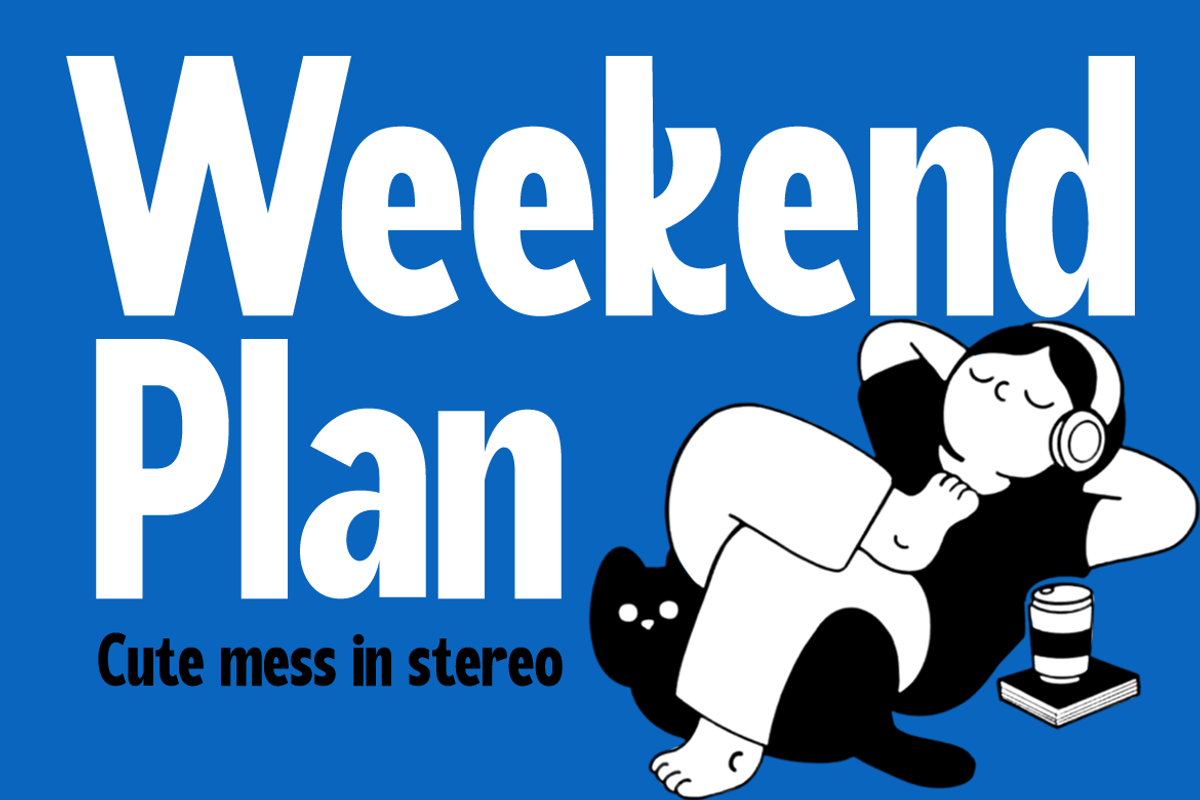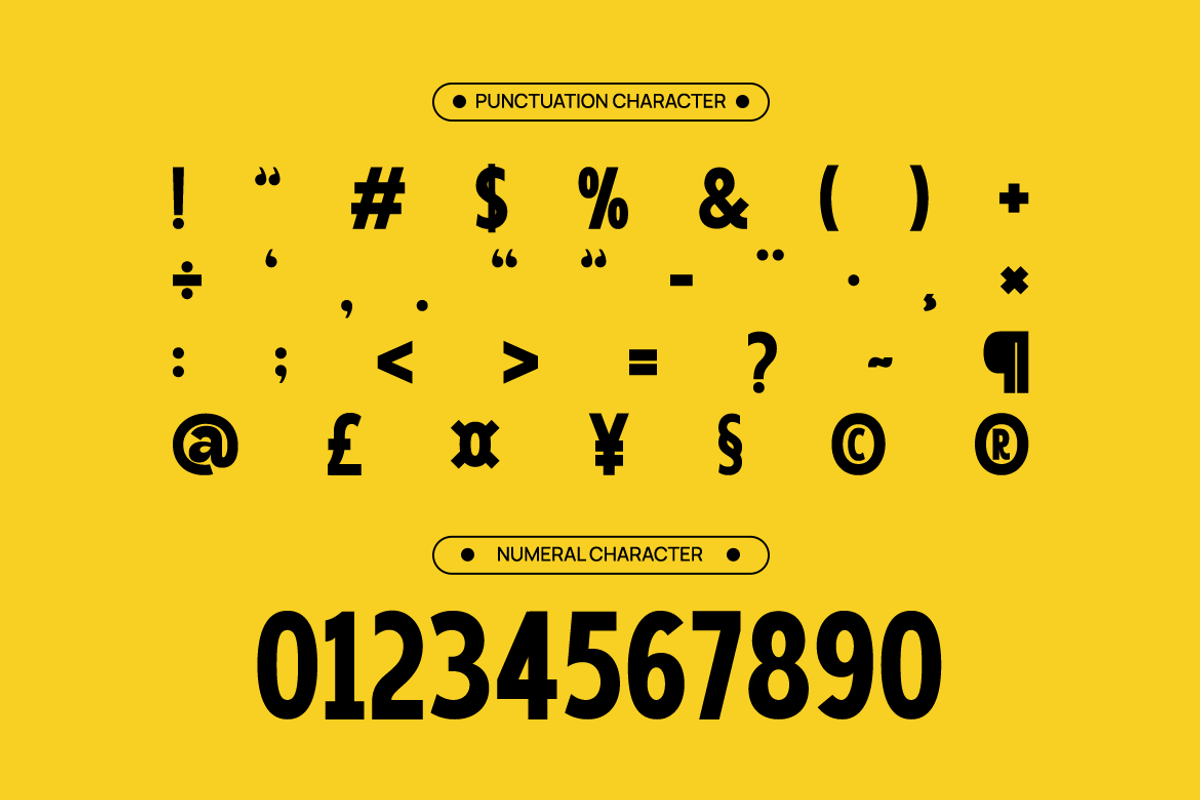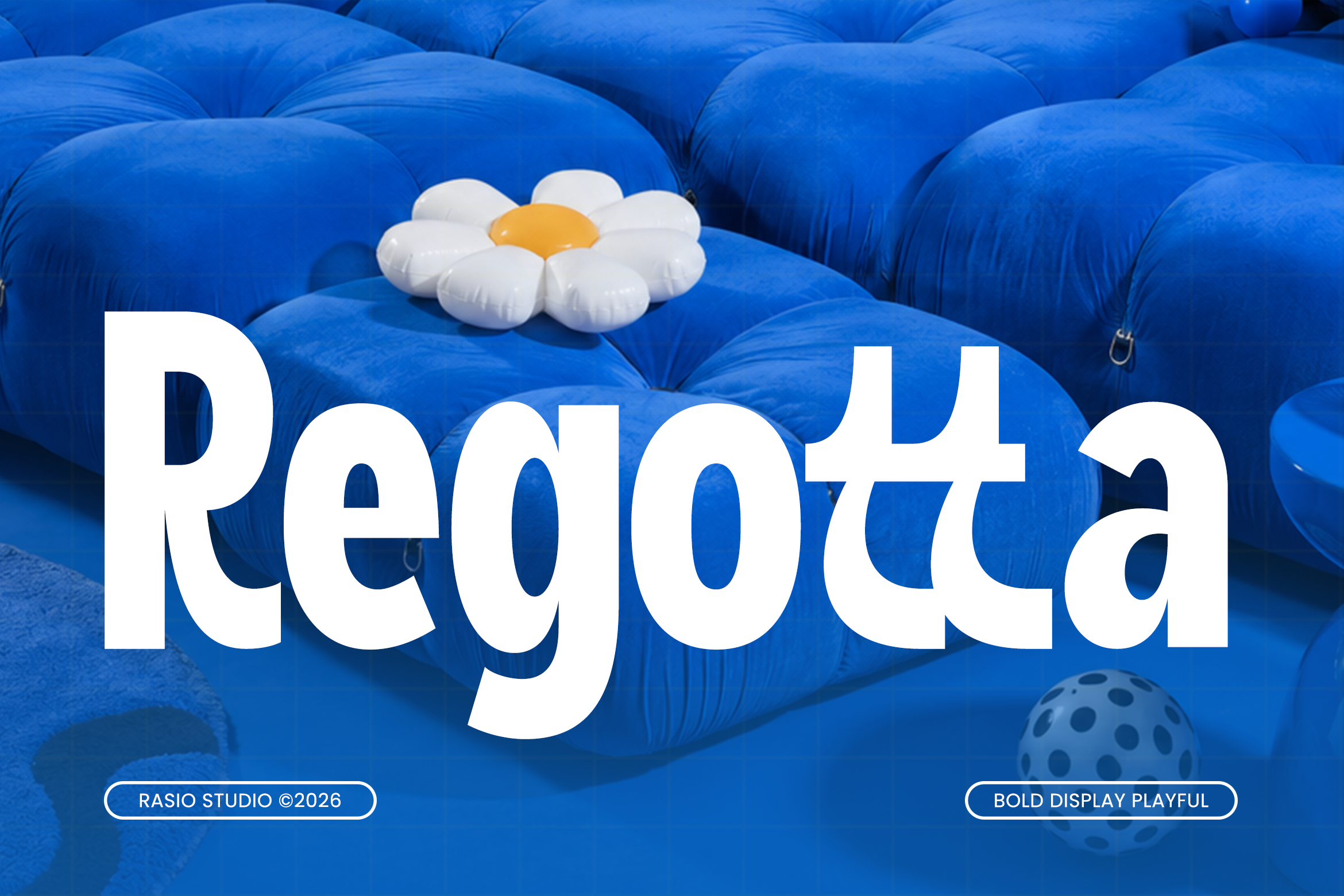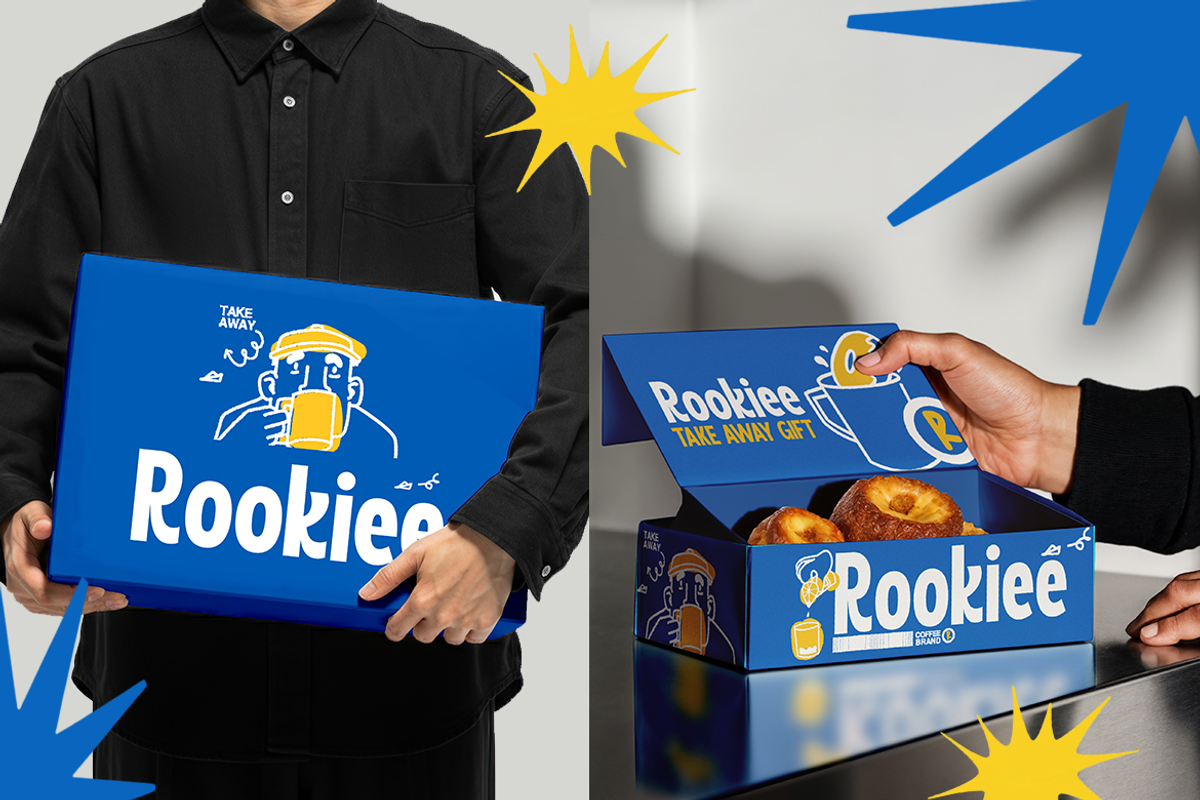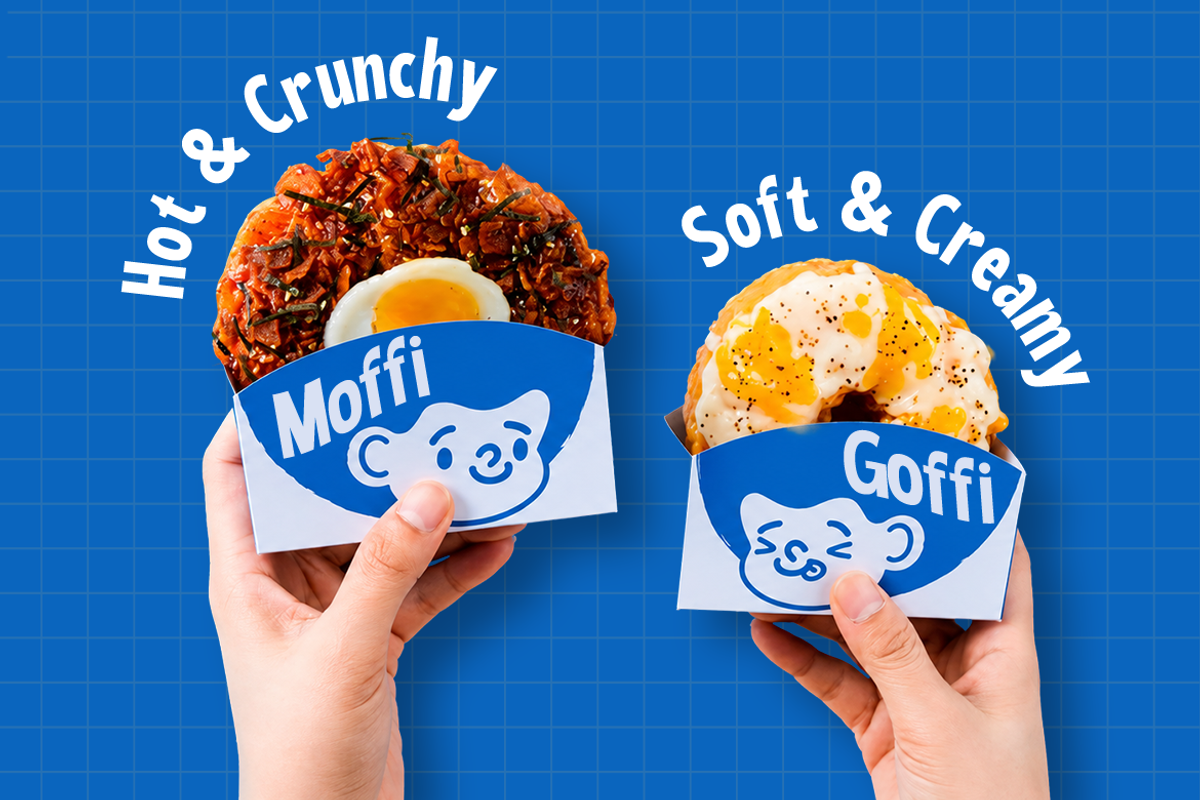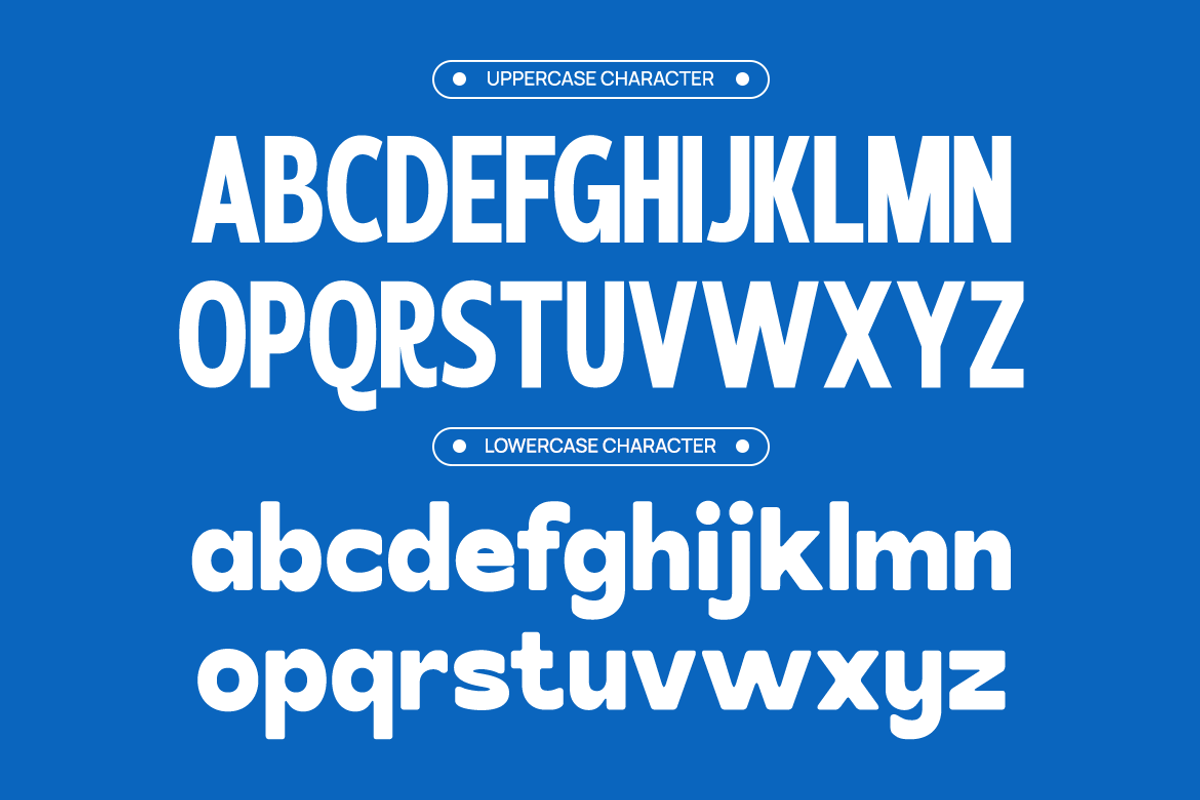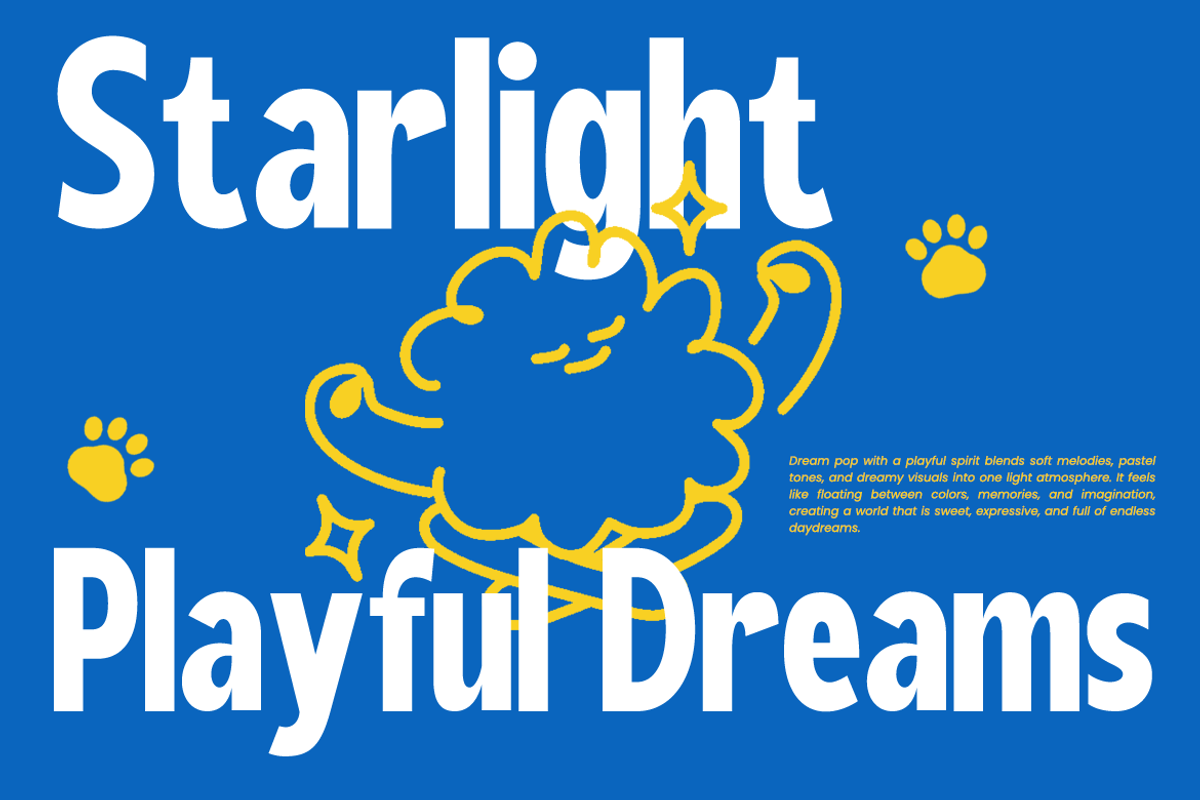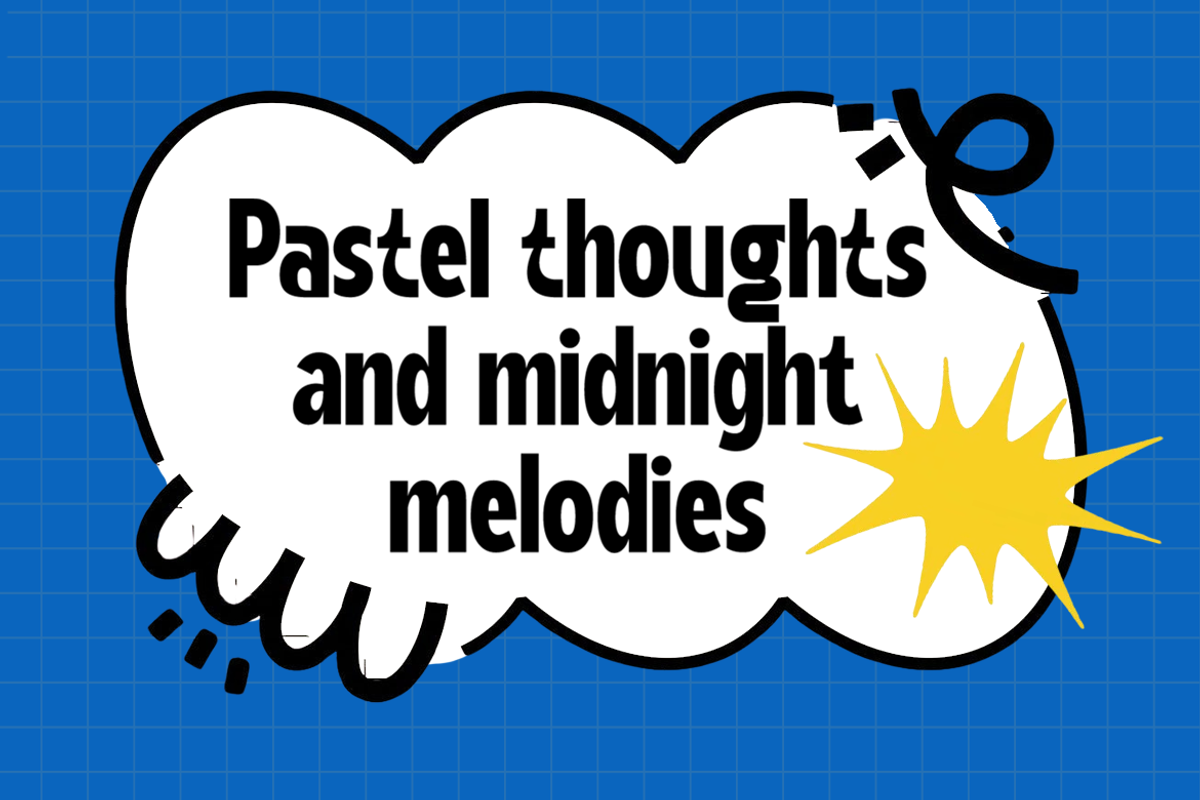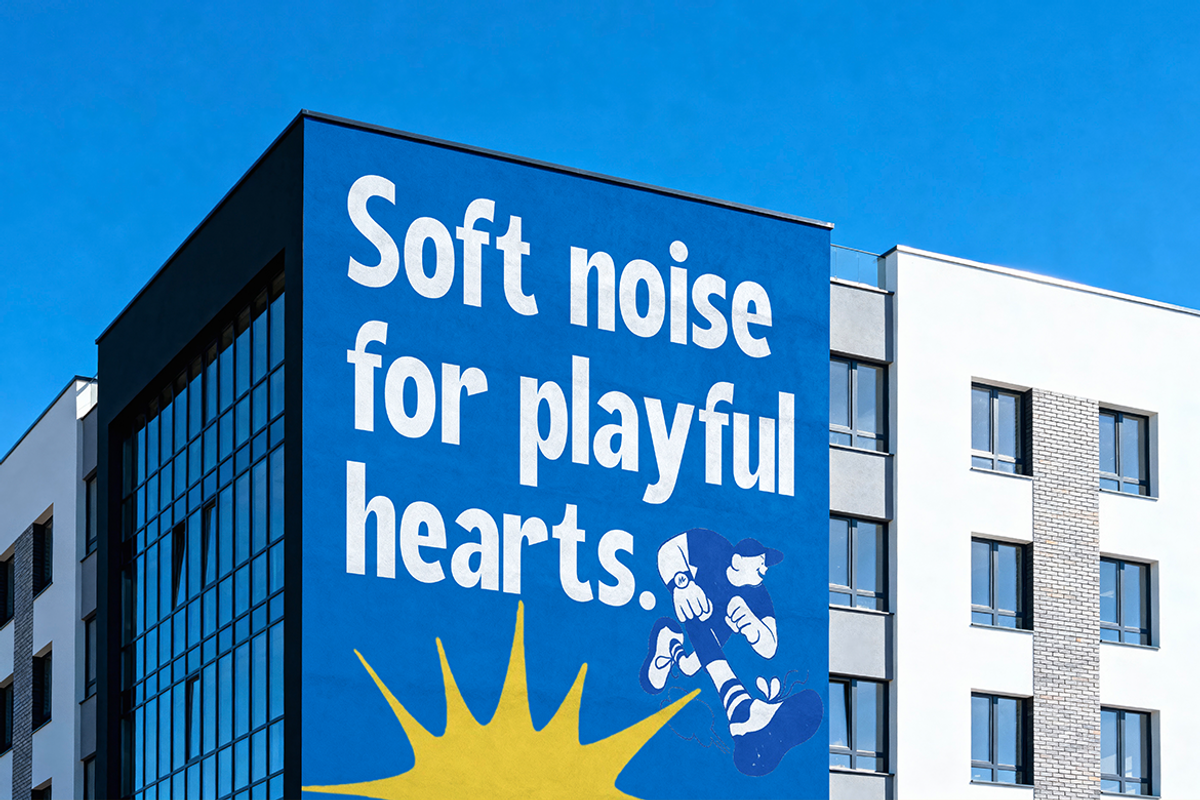
Regotta Bold Display Playful Font
Regotta is a bold playful display font featuring rounded shapes, chunky letterforms, and cheerful geometric curves that create a fun and energetic visual personality. Designed with a soft modern structure and strong readability, this typeface brings a vibrant and friendly atmosphere to creative branding, packaging, posters, and digital content. Its bold and expressive style makes it perfect for standout headlines and eye-catching visual communication.
Relevance & Use Cases is highly relevant for playful branding, children-themed designs, snack packaging, toy branding, social media graphics, creative posters, merchandise, event promotions, and modern advertising visuals. Its bold rounded appearance helps create a warm, approachable, and energetic identity, making it effective for projects that require strong visual impact with a fun and contemporary personality.
Bold playful display style with soft rounded geometric letterforms
Smooth curves and thick shapes that create a fun and friendly personality
Chunky modern construction designed for strong visual impact and readability
Balanced proportions with clean edges for cheerful contemporary aesthetics
Spacious character structure optimized for posters, branding, packaging design
Playful brand identity and cheerful product packaging
Kids-themed designs, toy branding, and fun merchandise
Social media graphics and colorful promotional content
Posters, headlines, and eye-catching advertising layouts
Snack, dessert, and lifestyle branding with friendly visuals
Screen-optimized kerning for responsive web design
Supports numerals, punctuation, and extensive symbol set